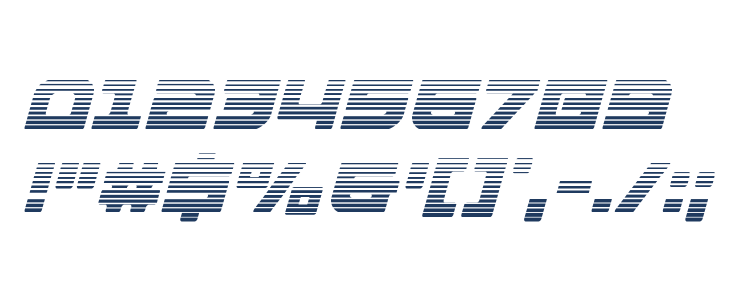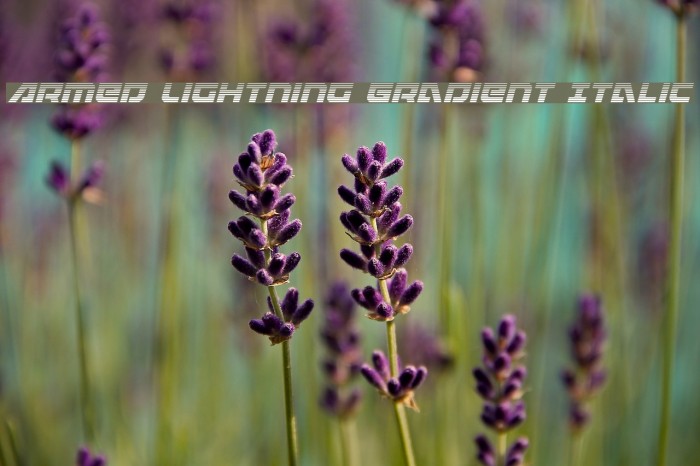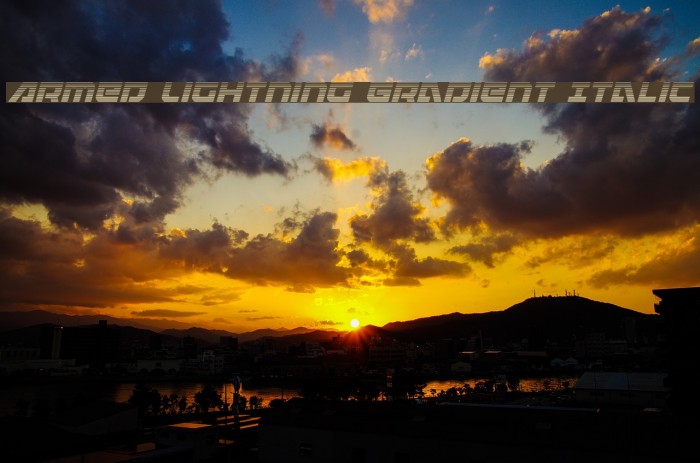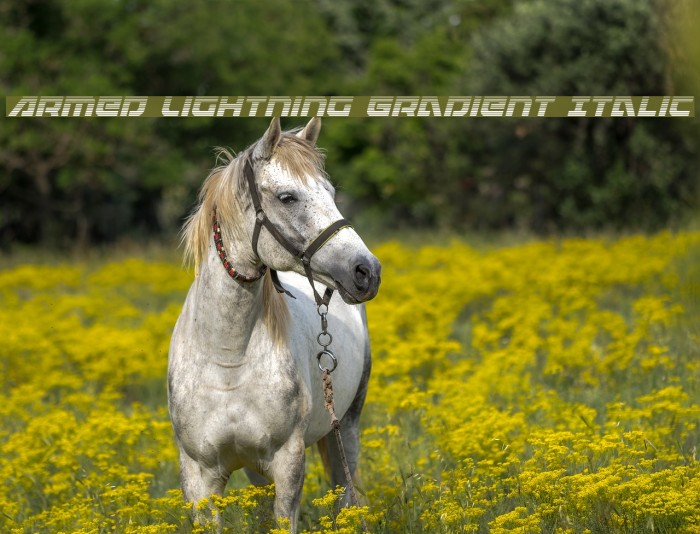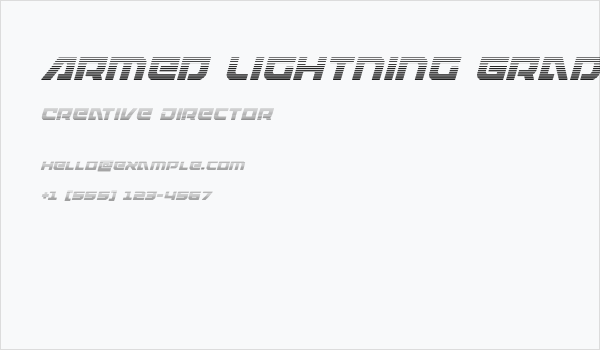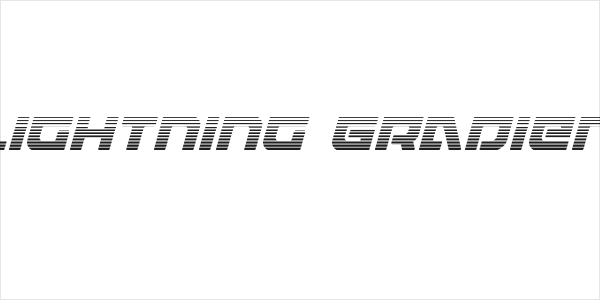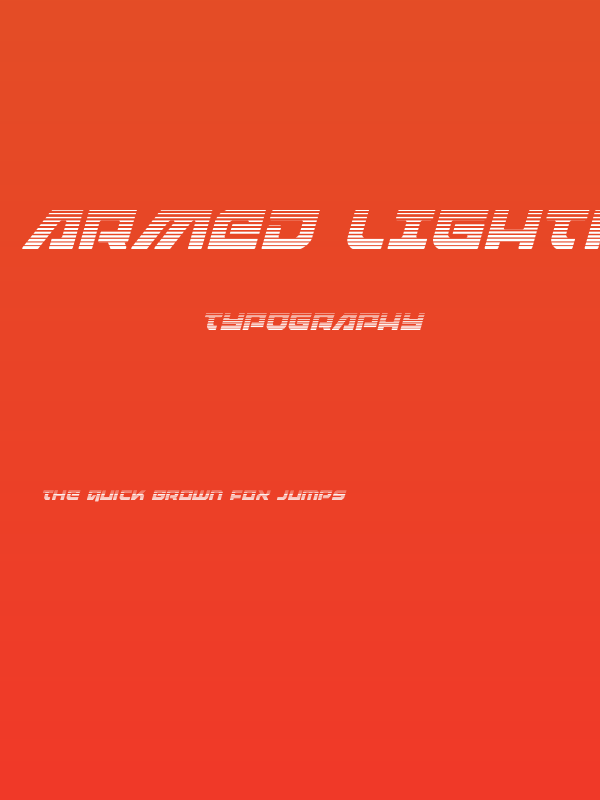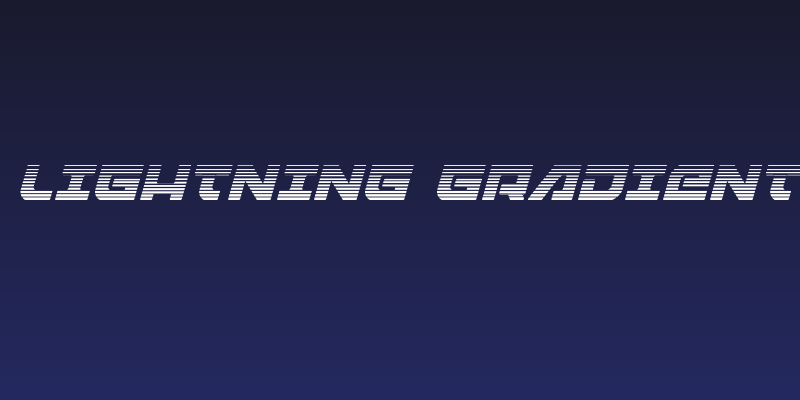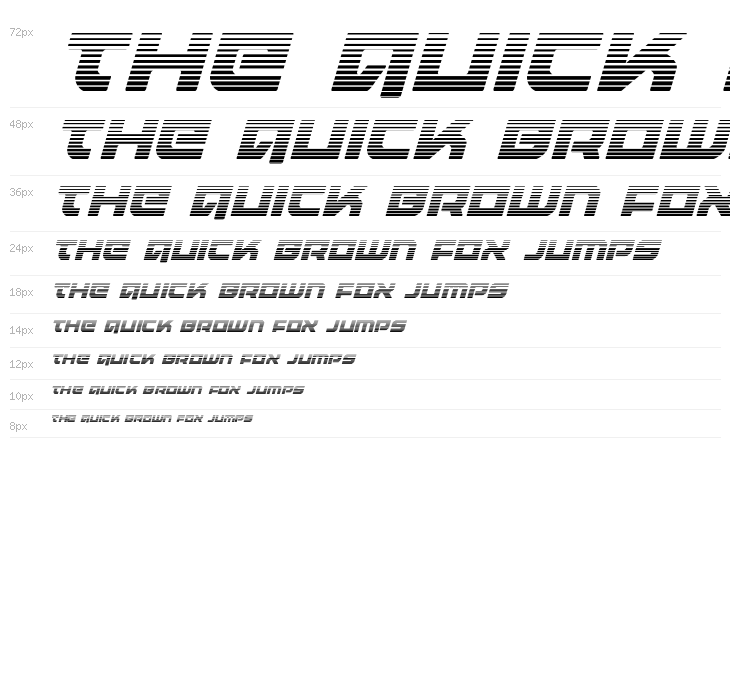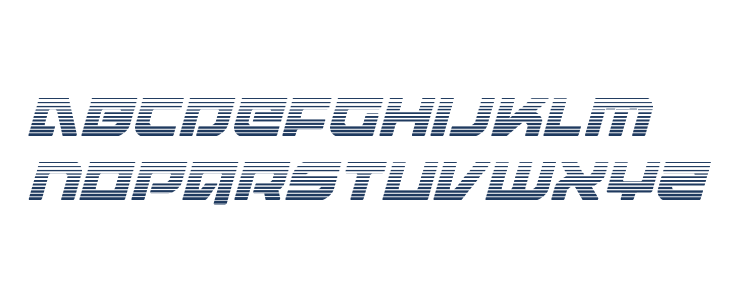
Armed Lightning Gradient Italic Font
Armed Lightning Gradient Italic Description
This font features a dynamic and futuristic design with a distinct gradient effect that gives the impression of movement and speed. The characters are italicized, adding to the sense of forward motion. Each letter is composed of parallel lines that create a striped pattern, enhancing the modern and edgy aesthetic. The uppercase and lowercase letters maintain a consistent style, while the numerals and special characters integrate seamlessly with the overall design. The font's unique appearance makes it suitable for projects that require a bold and striking visual impact.
| Proposed Projects | Ideal for sports branding, tech-related designs, futuristic themes, and dynamic posters. |